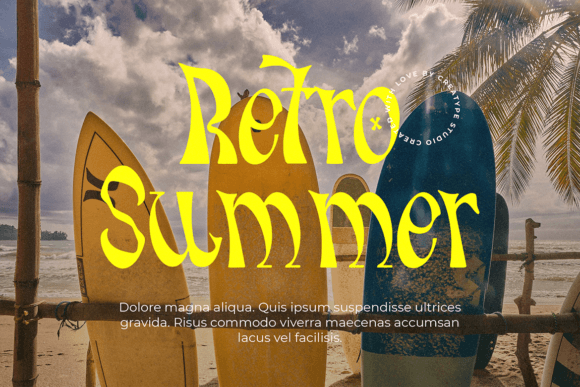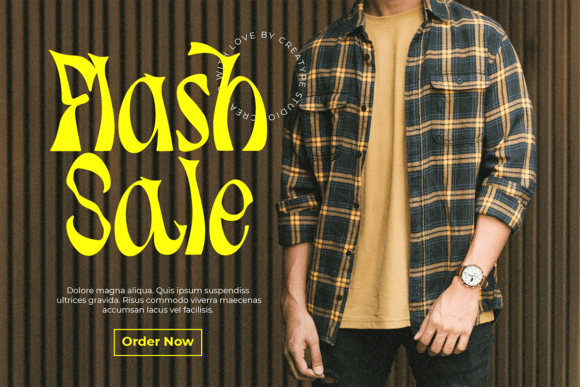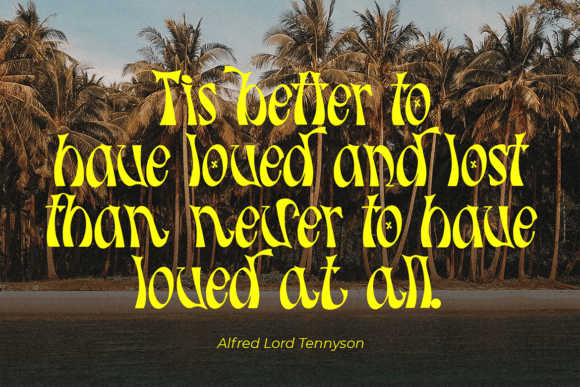
Introduction to Molland Font
Molland, is a groovy display font that mixes vintage allure with an energetic vibe, making your brand’s messaging resonate with nostalgia.
Molland is perfect for branding projects, logos, wedding designs, social media posts, advertisements, product packaging, product designs, label, photography, watermark, invitation, stationery, and any projects that need handwriting taste .
Key Features of Molland Font
Why Choose Molland Font?